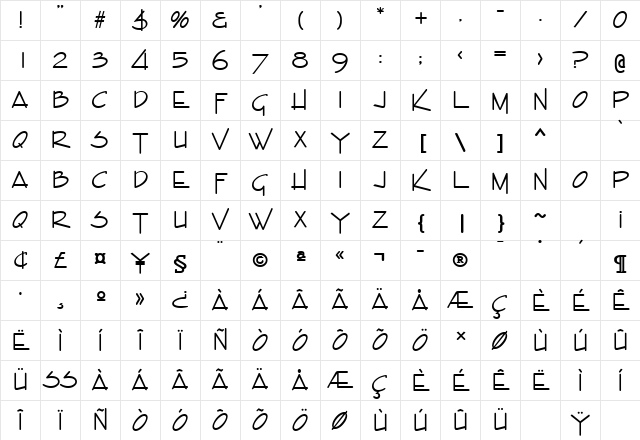
Entebbe Regular Free Font
Entebbe Regular
Entebbe Family
Entebbe Regular
Design Context for Entebbe
Entebbe is a composed and adaptable typeface that performs quietly and consistently across a wide range of design contexts.